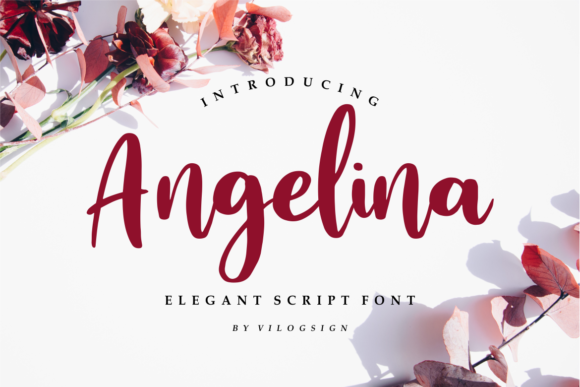
Discover the Magic of Angelina Font
Have you ever sat at your desk, staring at a blank page, waiting for inspiration to strike? For designers, this moment can be a daunting experience, but it’s also a chance to create something truly special. And that’s exactly what happens when you add a touch of whimsy and personality to your design – like the beautiful and playful handwritten font, Angelina Font.
Angelina Font is more than just a font – it’s a way to turn any design project into a standout. Its incredible feel and unique character make it the perfect addition to any creative endeavor, from branding and marketing materials to editorial and digital designs. With Angelina Font, you can add a touch of elegance and sophistication to your work, making it truly unforgettable.
Whether you’re a seasoned designer or just starting out, Angelina Font is a valuable tool to have in your arsenal. Its versatility and charm make it a must-have for any creative project, and its ease of use means you can focus on what really matters – bringing your vision to life.
Angelina Font Key Features
- Font Family: Angelina is a script font, ideal for creative and elegant typography.
- Unique Characteristics: Angelina features a beautiful, hand-drawn design with subtle imperfections, giving it a unique and personal touch.
Angelina Font Review
Overall, I think Angelina Font has some great qualities that make it a solid choice for certain designs. ✨ The font is elegant and sophisticated, with a beautiful, flowing script that’s perfect for adding a touch of luxury to your project. ✨ The connections between letters are smooth and seamless, making it easy to read and visually appealing. ✨ Additionally, the font is highly customizable, with a wide range of weights and styles to choose from.
While Angelina Font is a great choice for many designs, there are a few limitations to consider. ⚠️ One of the main issues is that the font can be quite busy, with a lot of fine details that may not translate well to smaller font sizes or lower resolutions. ⚠️ Additionally, the font may not be the best choice for text-heavy designs, as the connections between letters can make it difficult to read.
Features
- Elegant and sophisticated script
- Smooth connections between letters
- Highly customizable with a wide range of weights and styles
- Perfect for adding a touch of luxury to your project
Recommendation
Overall, I would recommend Angelina Font for designs where you want to add a touch of elegance and sophistication. It’s perfect for logos, branding, and other high-end designs where you want to make a statement. However, it may not be the best choice for text-heavy designs or projects with tight budgets.
Getting the Most Out of Angelina Font
To get the most out of Angelina Font, experiment with different font sizes, colors, and styles to create a unique and visually appealing design. Use Angelina Font in combination with other design elements, such as images and graphics, to add depth and interest to your design.
Angelina Font is commonly used for:
- Special occasion graphics and cards
- Editorial content and typography-based designs
- Business reports and presentations
- Academic papers and resumes